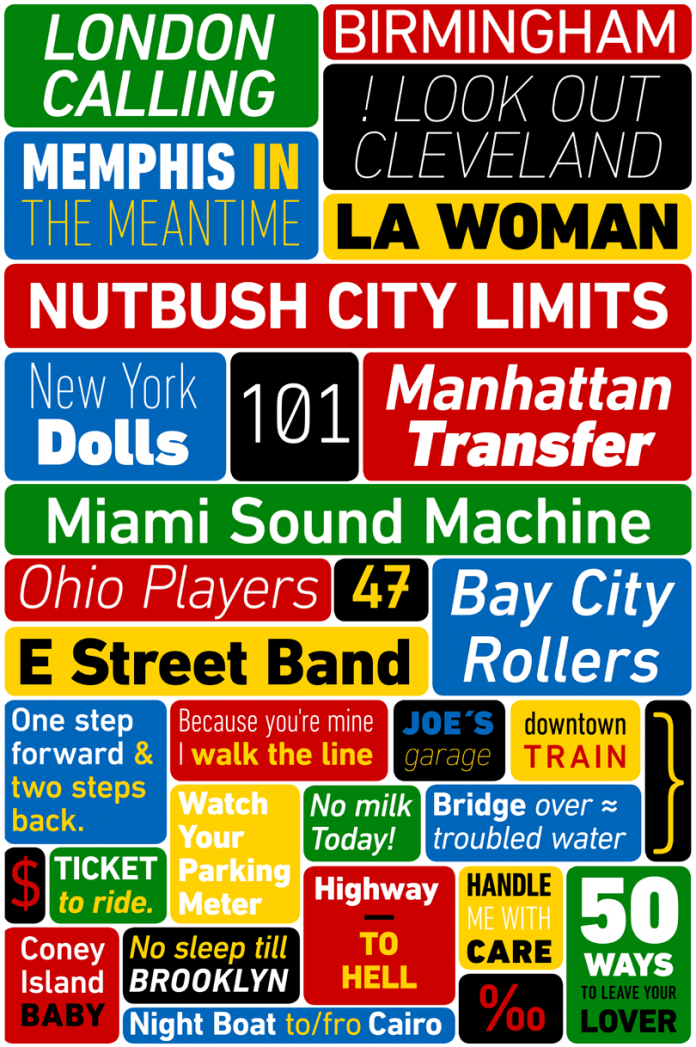
The abbreviation “DIN” has its origin in the name “Deutsches Institut für Normung”, which means “German Institute for Standardization”. The DIN typeface came to life as DIN Institute’s standard no. DIN 1451, which was first published in 1931. The family included a variety of different types intended for different applications such as mechanically engraved lettering, hand-lettering, lettering stencils, and printing types. These variety of fonts could be used in the fields of signage, traffic signs, wayfinding as well as lettering on technical drawings and technical documentation. All letters are based on a simple, geometric style in order to ensure easy reproduction and legibility.
Until today, the typeface has been used for road signs and industrial labels. Since the 1990s, even more versions came to life for use in book and magazine lettering. The DIN Next font family was designed by Akira Kobayashi for foundry Linotype as a typographically corrected and even more expanded version of this trailblazing sans serif type family.